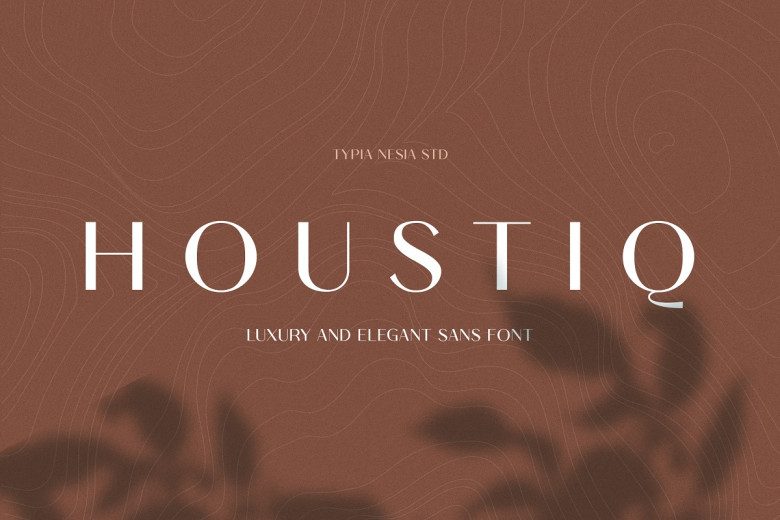
Houstiq Font
Houstiq is an elegant and unique Sans serif font. With its large variety of incredible projects that can fit, it might be easy to combine it with creative ideas and watch them shine!
Houstiq Sans Serif Font